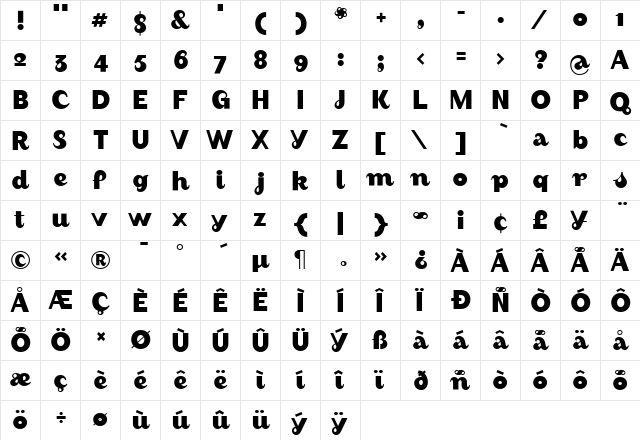
August Bold
| Foundry | Copr. Gareth Hague |
Design Context for August Typeface
August is a composed and adaptable typeface that performs quietly and consistently across a wide range of design contexts. Its bold stroke weight gives it real presence on the page.